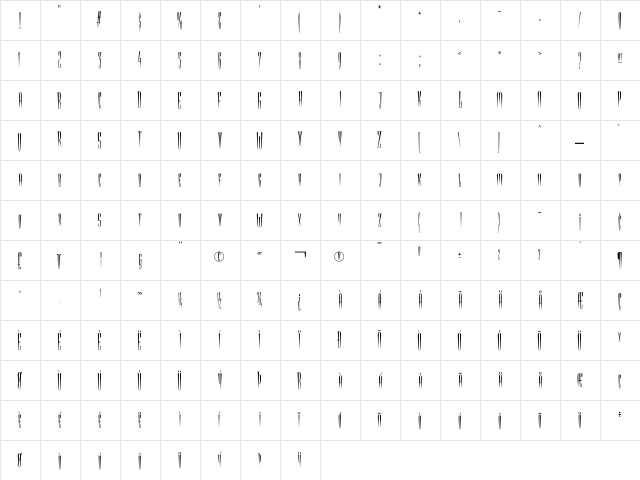
Girlfriend Regular
Design Context for Girlfriend Typeface
Girlfriend is a composed and adaptable typeface that performs quietly and consistently across a wide range of design contexts.